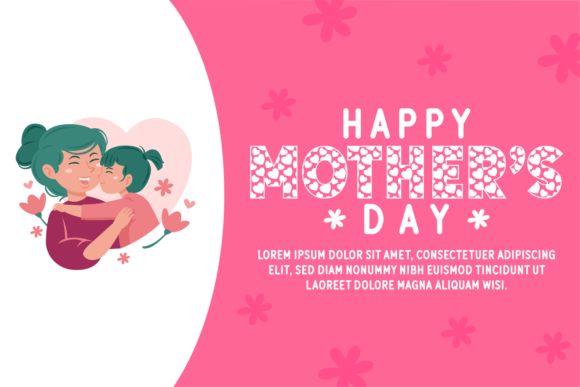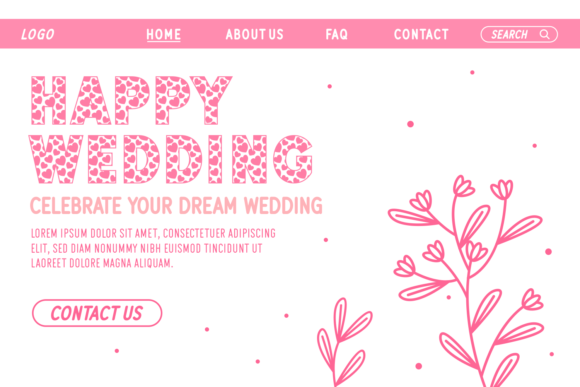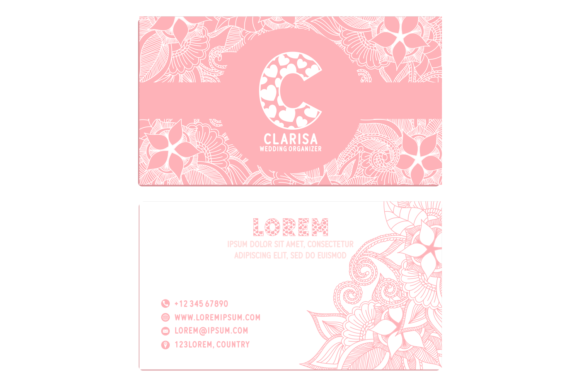
Introduction to She Love Font
She Love is a romantic decorative font.
It looks cute and fun on a variety of design ideas and it will most certainly elevate each of your creations .
She Love Font offers exceptional quality and versatility, making it a valuable addition to your design toolkit. Whether you’re creating for personal projects or commercial use, She Love Font delivers professional results.